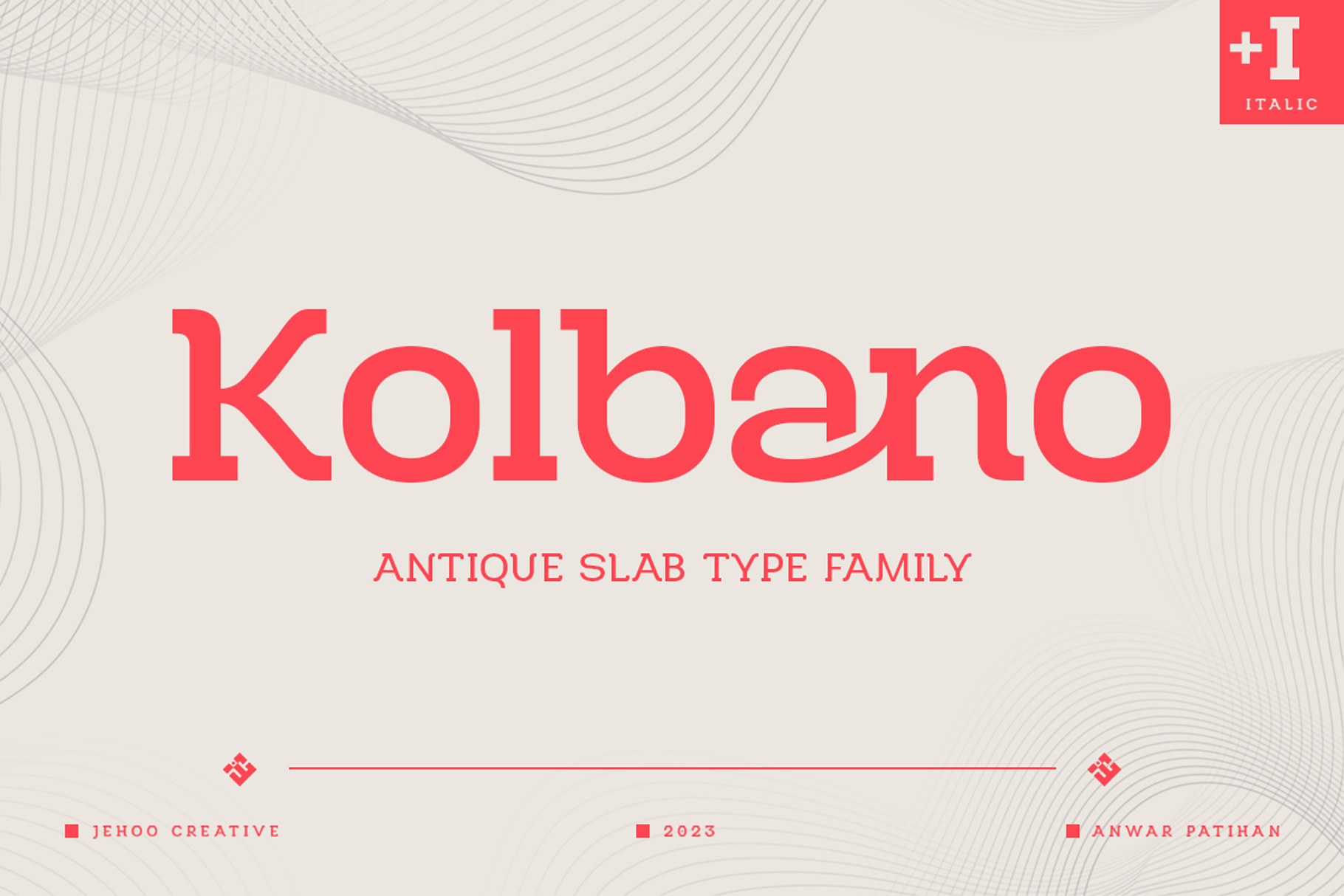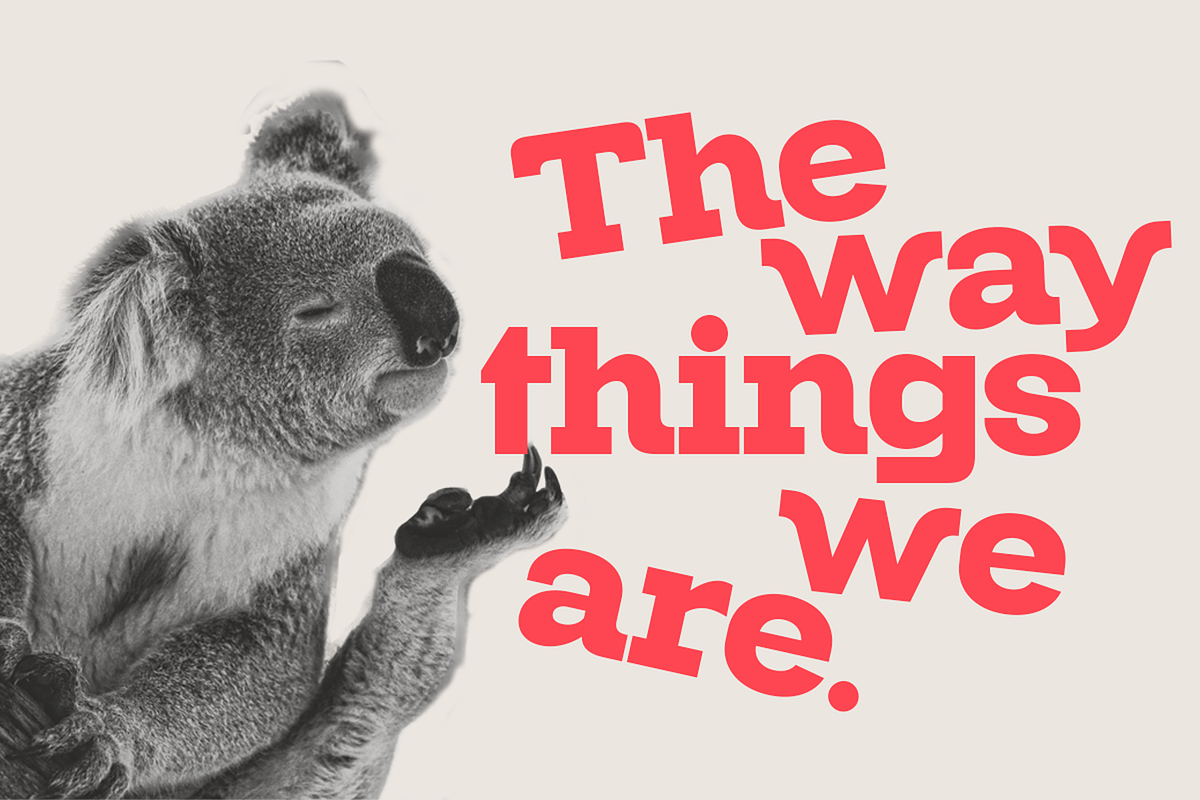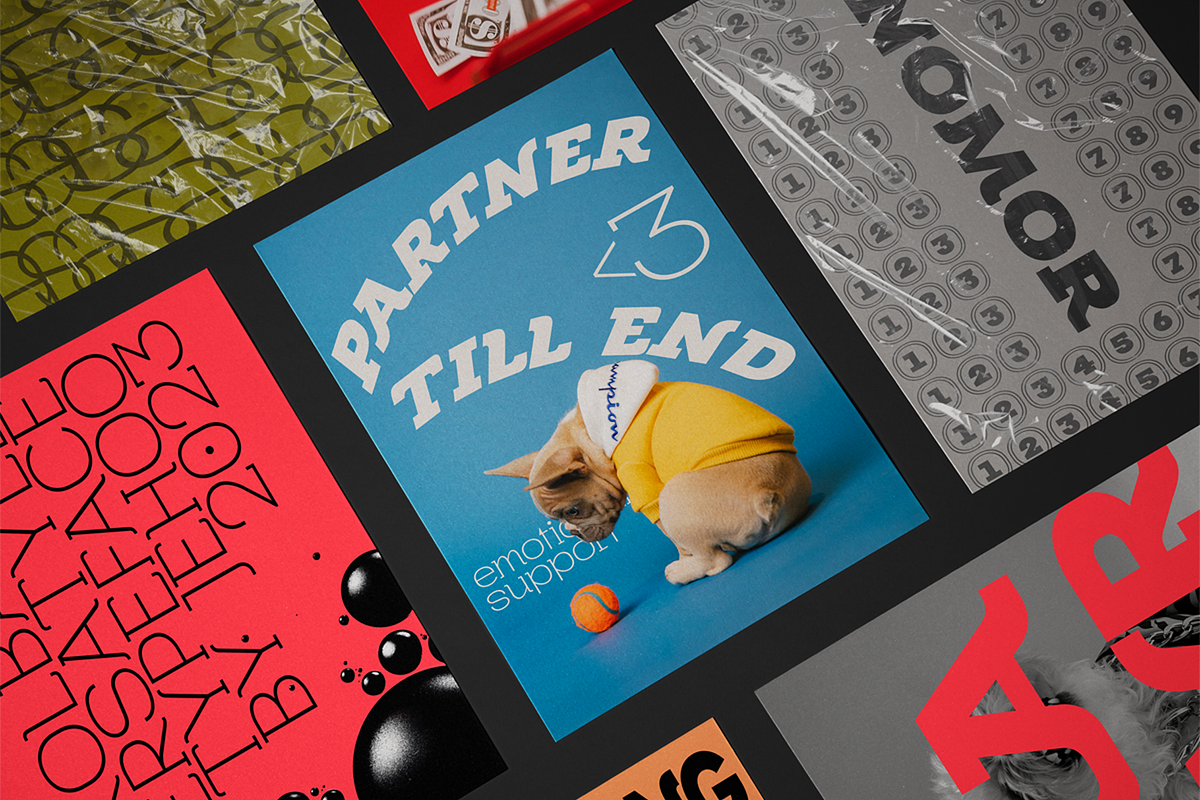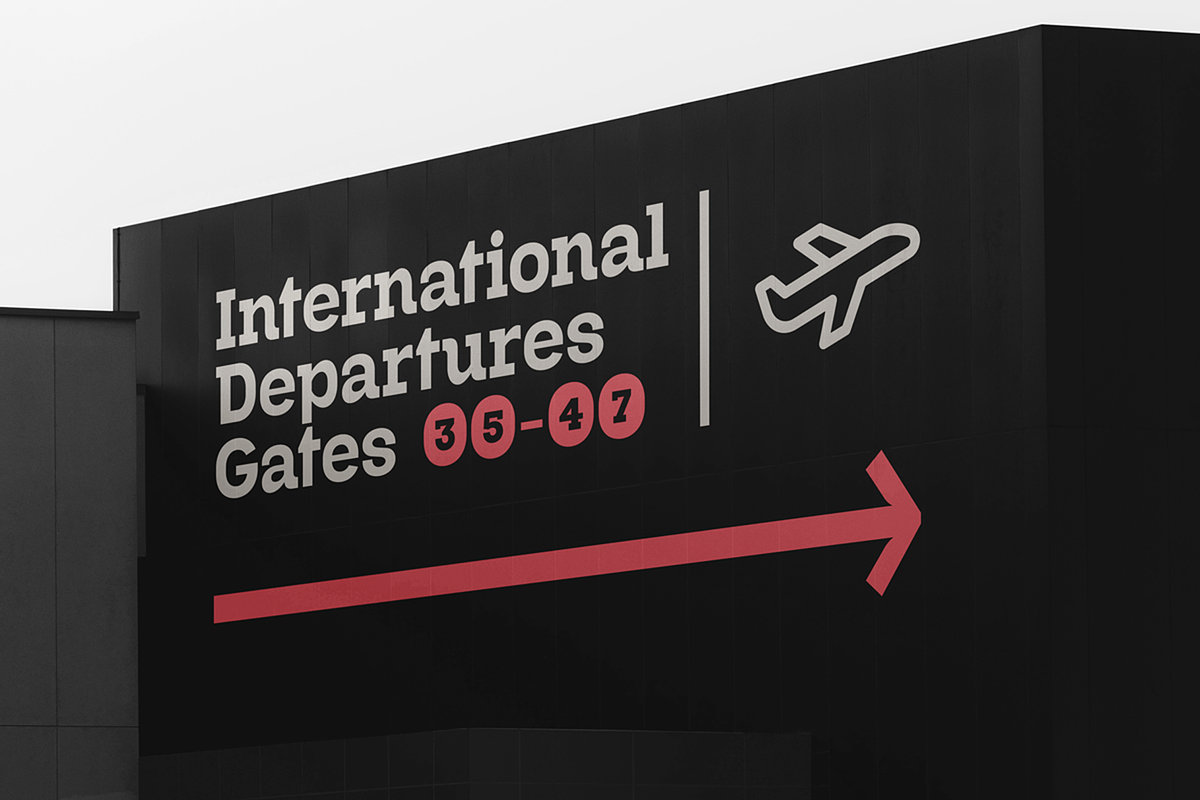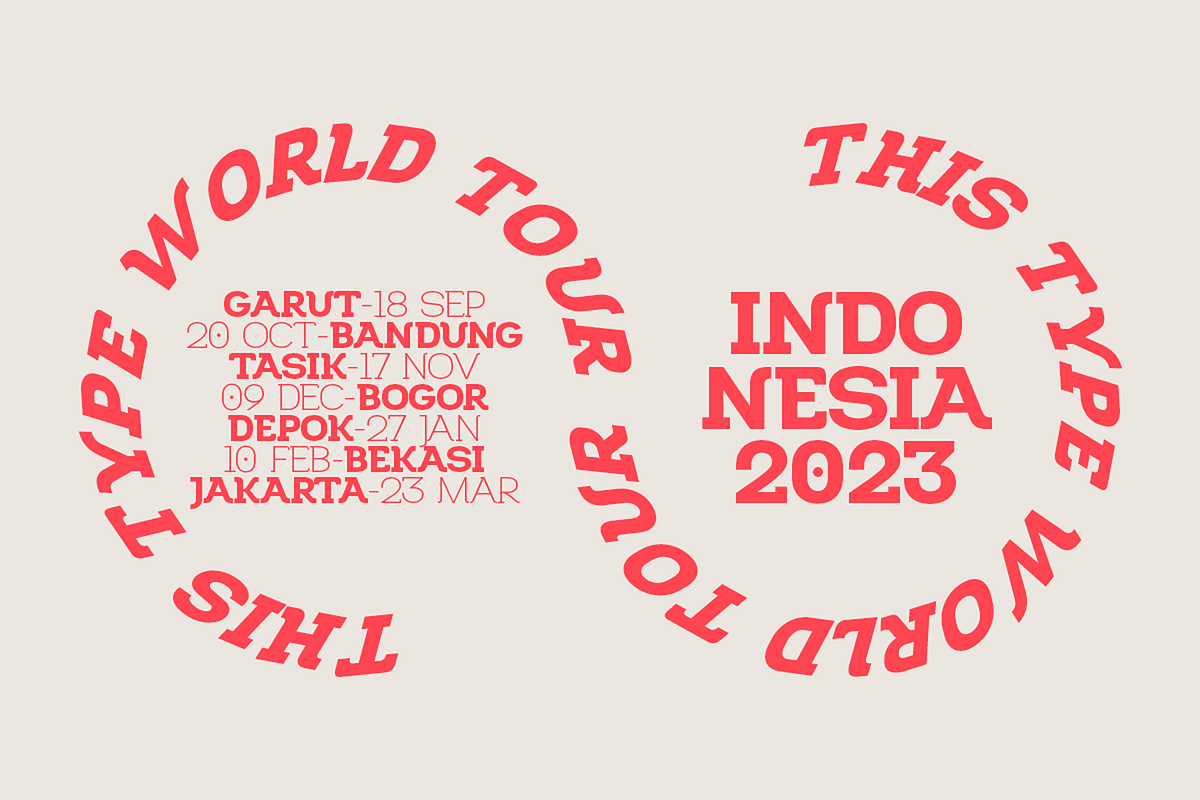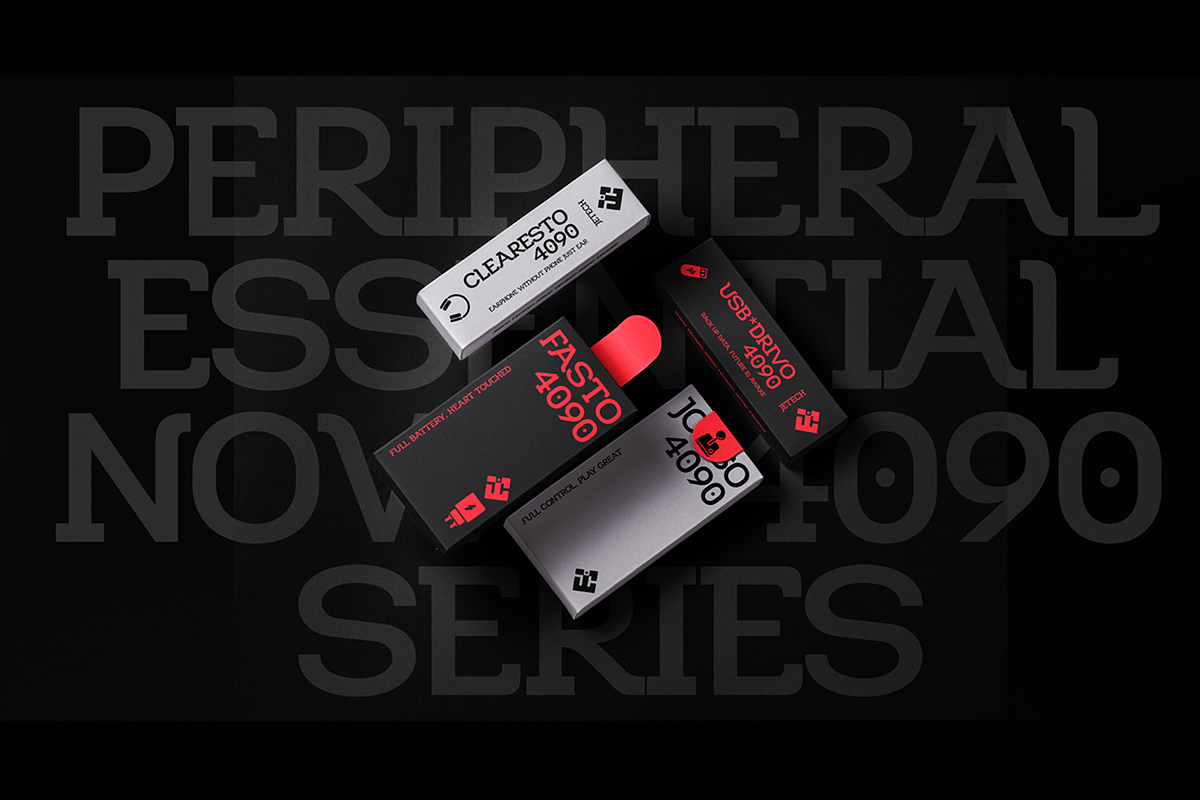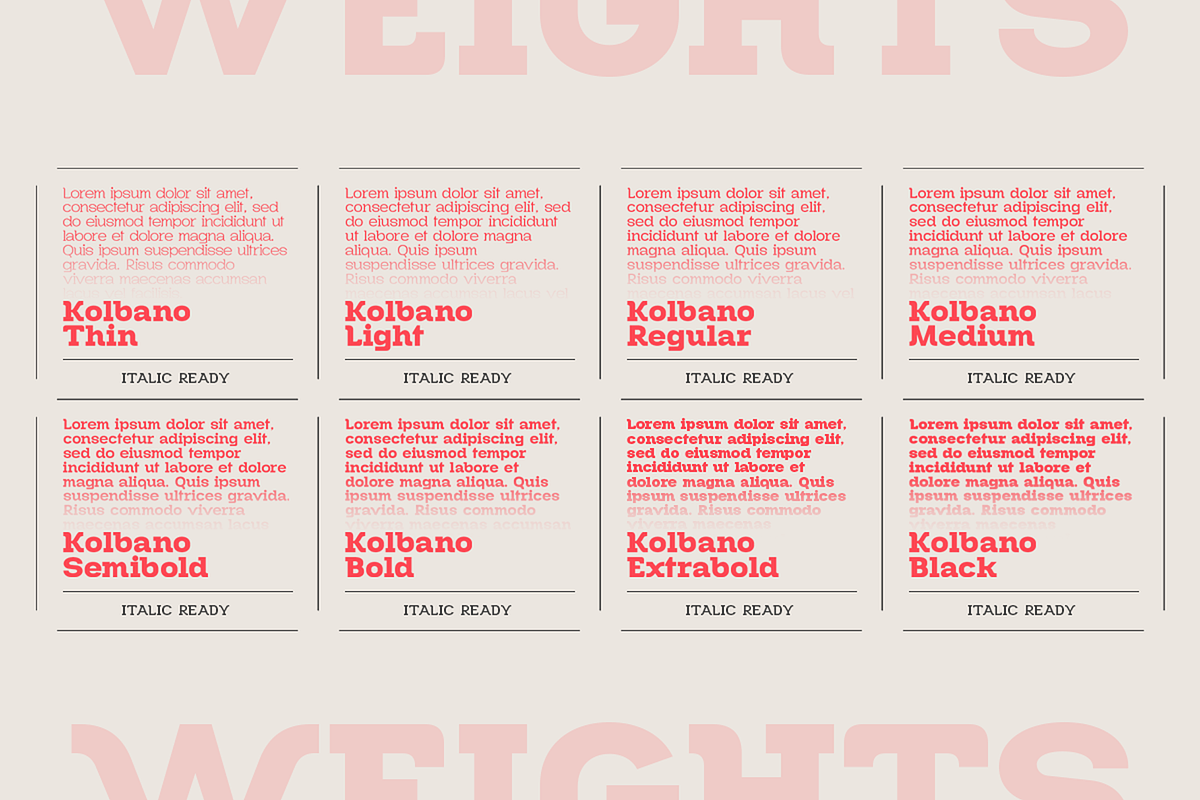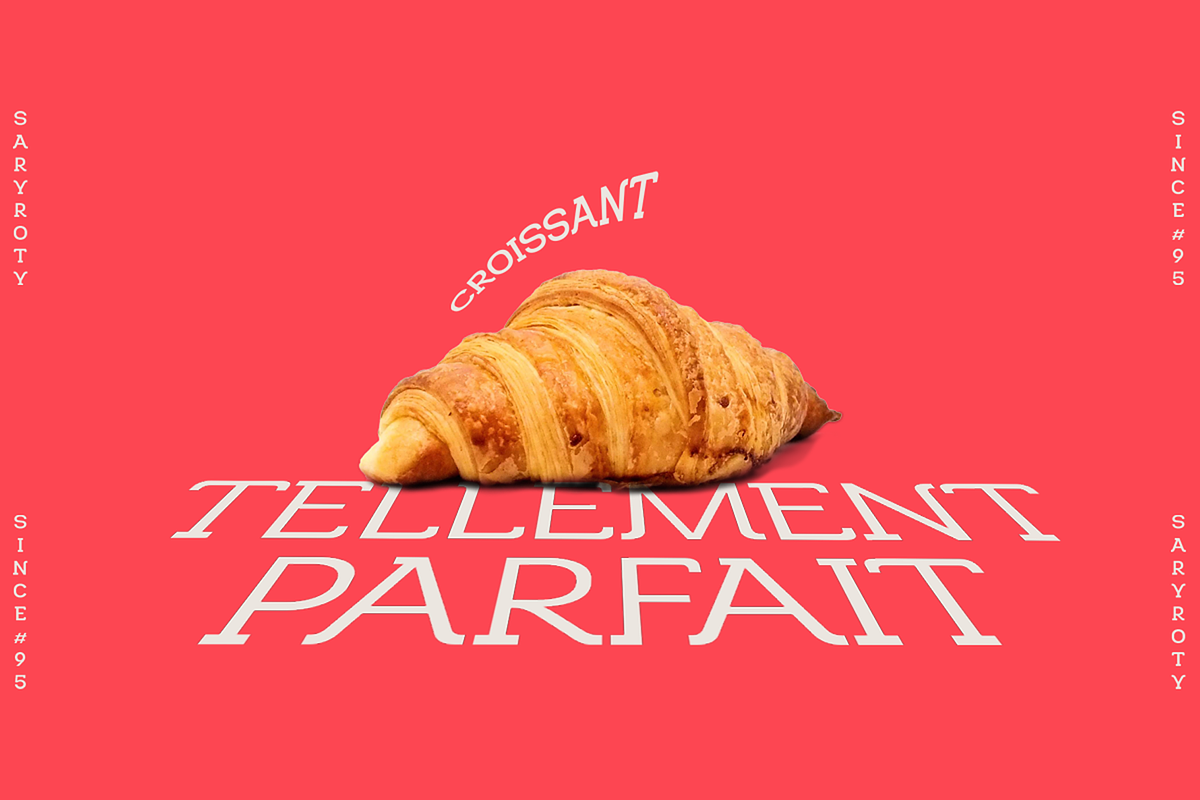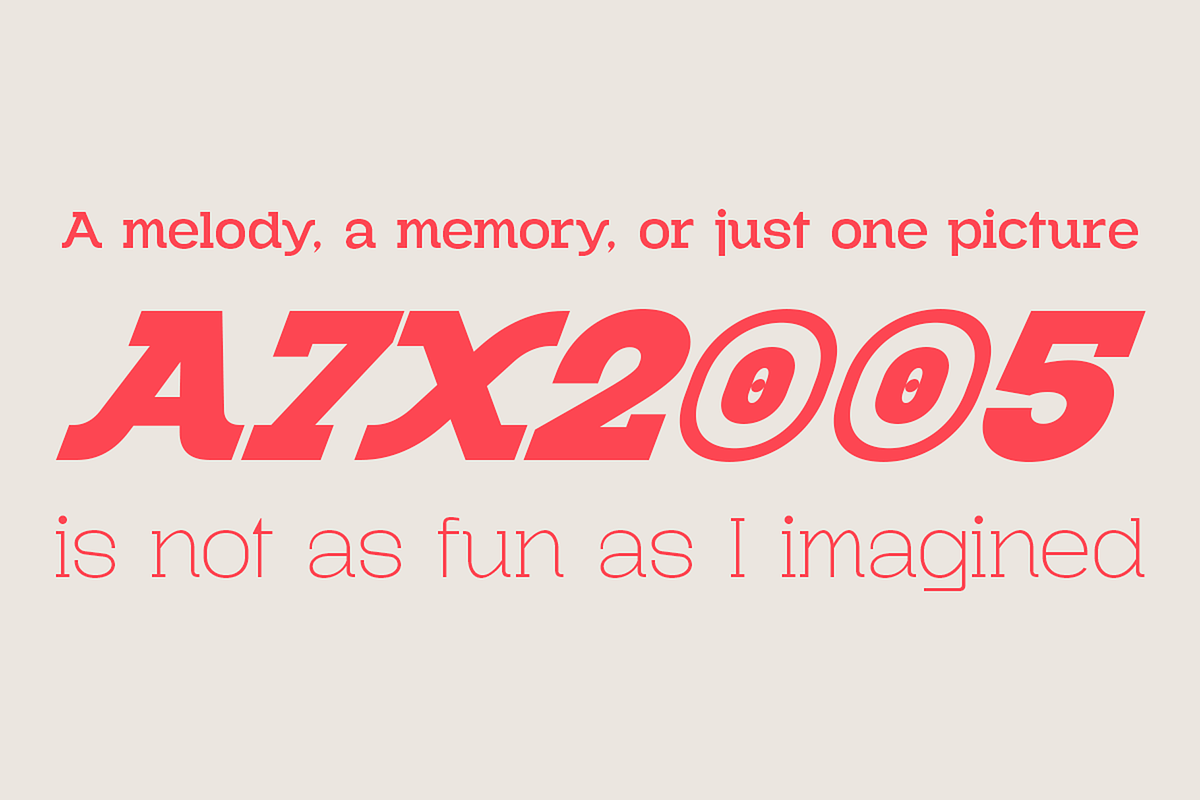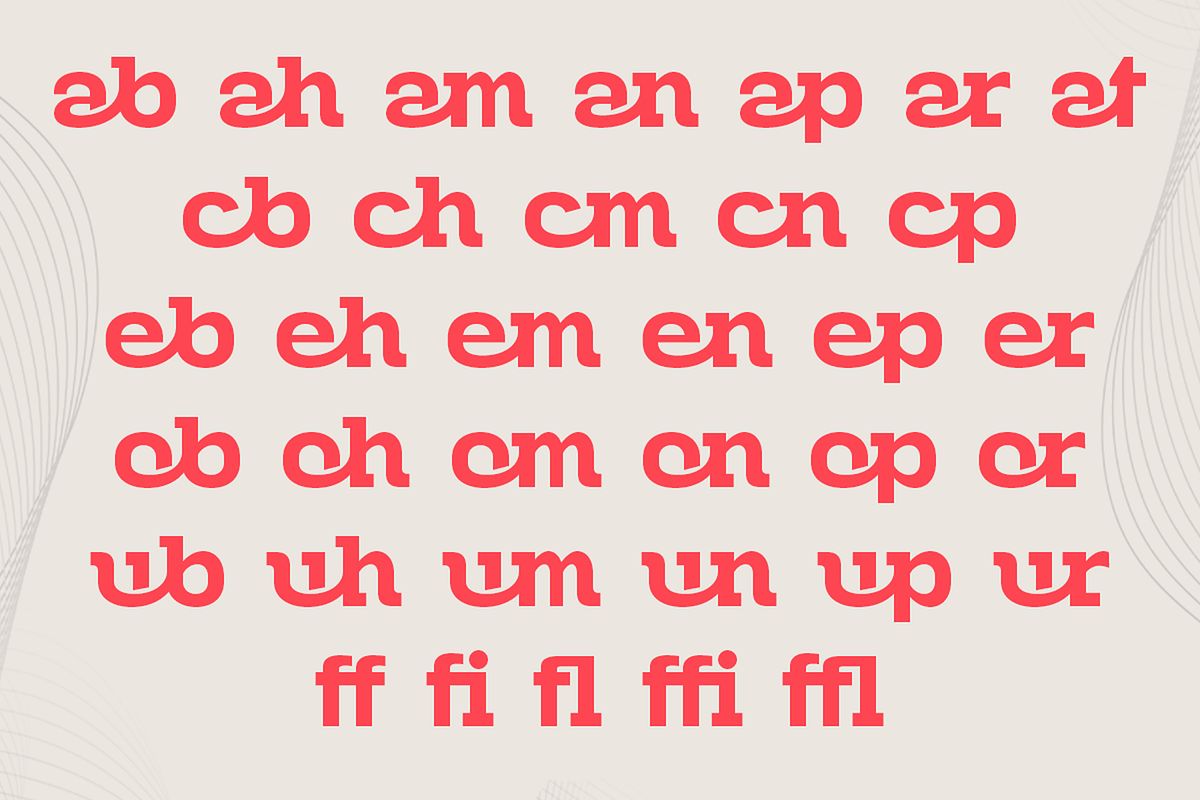
Kolbano - Antique Typefamily
Kolbano is a visually captivating typeface that is renowned for its distinctive and expressive letterforms. Designed with meticulous attention to detail, each character in Kolbano Font possesses a unique shape, making it an exceptional choice for creative and artistic projects. The font's design philosophy centers around providing a harmonious balance between elegance and personality.
The letters in Kolbano are meticulously crafted with fluid curves, sharp angles, resulting in an eye-catching and memorable visual experience. Every character stands out on its own, showcasing its own individuality and artistic flair. Whether used in headlines, logos, or other design applications, Kolbano is sure to make a lasting impression.
In addition to its regular upright variant, Kolbano also offers a captivating italic style. The italics add a dynamic touch to the typeface, imbuing the text with a sense of movement and energy. The slanted letterforms maintain the unique shape of each character, preserving the font's distinctiveness while introducing a sense of flow and elegance. The italics are perfect for emphasizing words, creating emphasis, or adding a touch of sophistication to any design.
Kolbano s versatile and adaptable, suitable for a wide range of creative projects. Its aesthetic appeal makes it ideal for editorial design, branding, packaging, posters, and any application where typography plays a central role. The font's versatility allows it to effortlessly adapt to various design themes and concepts, whether it be modern and sleek or vintage and nostalgic.